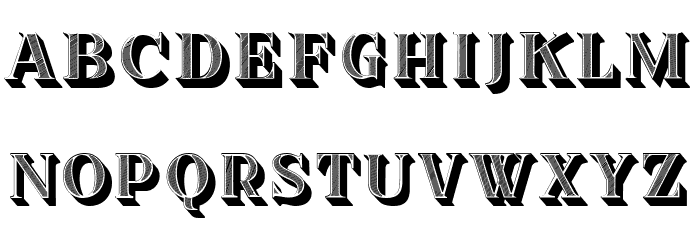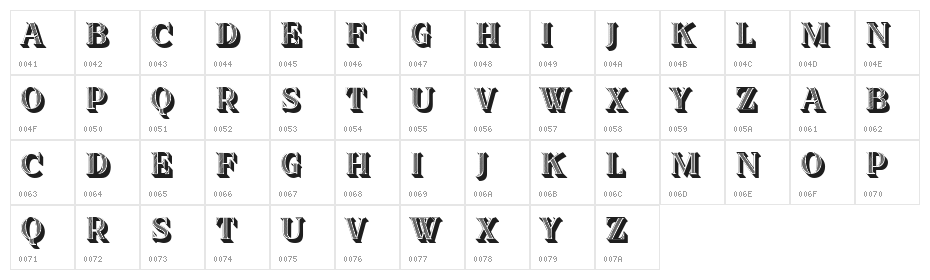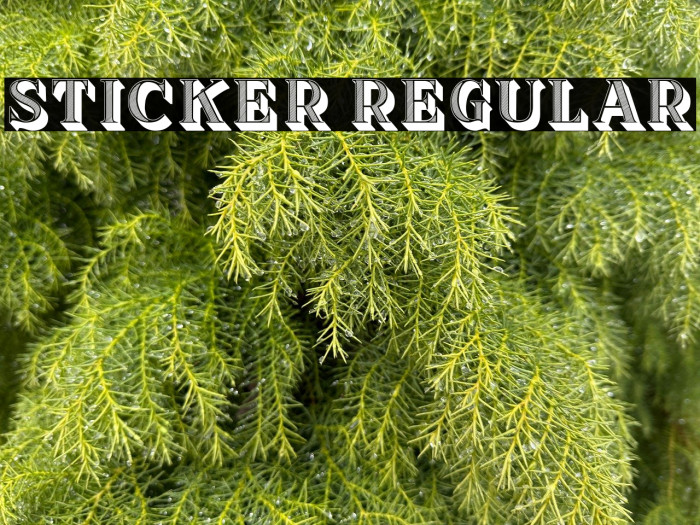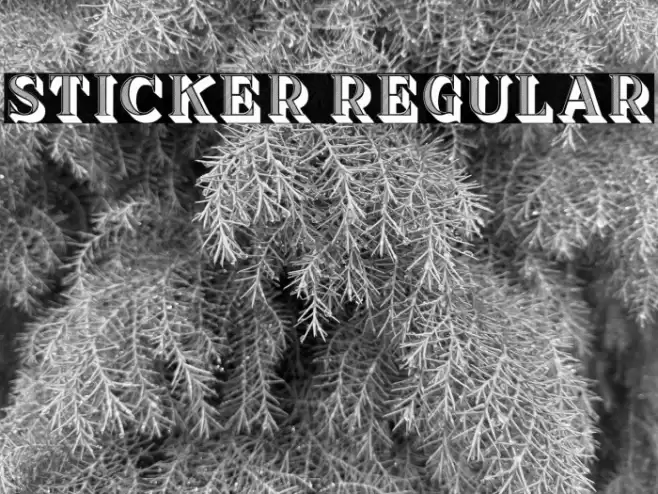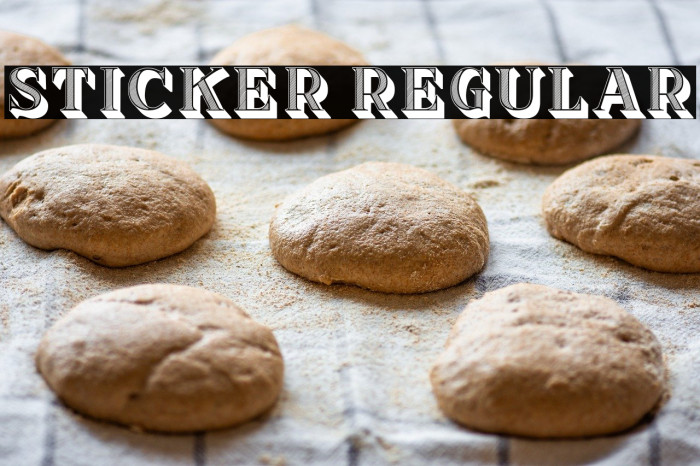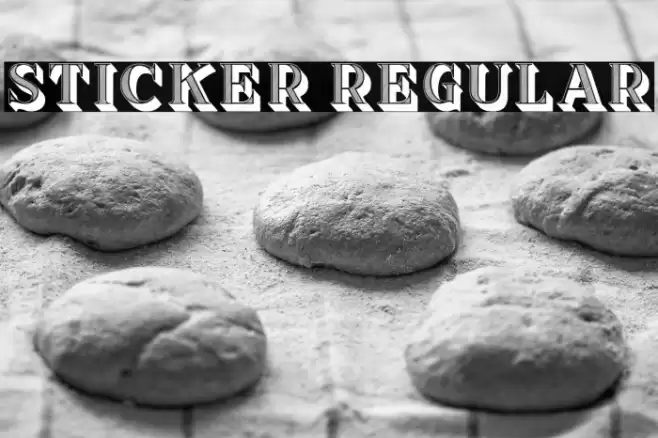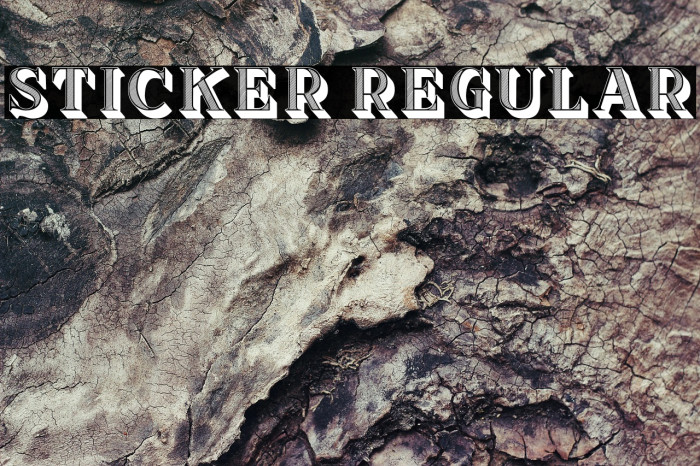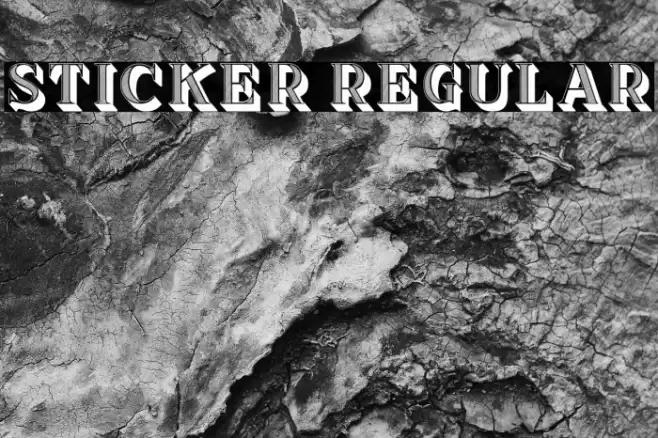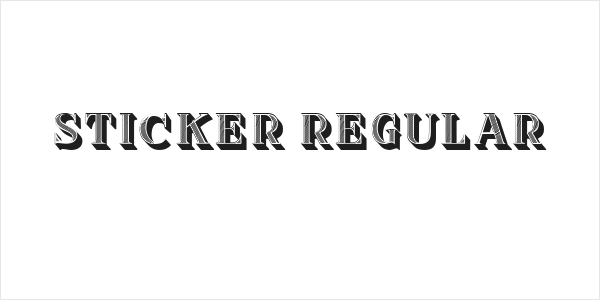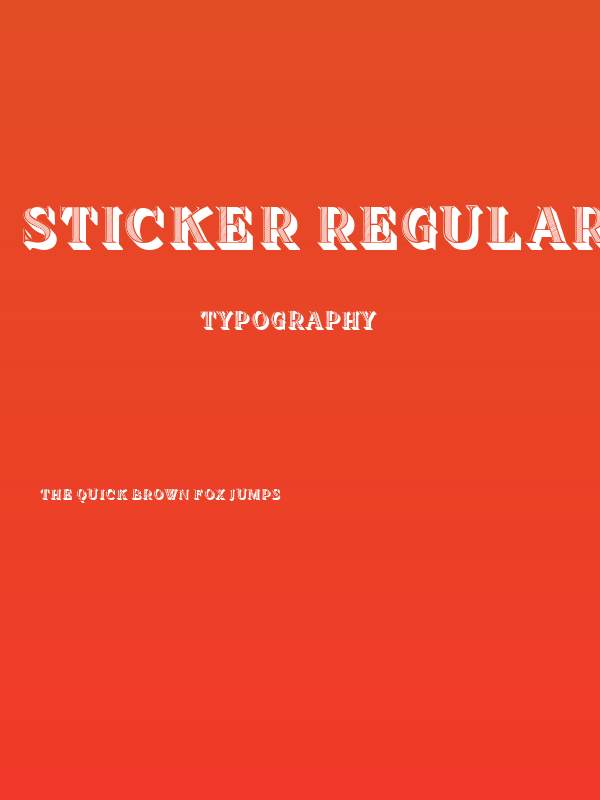
Sticker Regular Font
Sticker Regular Description
This font features a bold and striking design with a three-dimensional effect that gives it a unique and eye-catching appearance. The letters are capitalized and have a shadow that creates a sense of depth, making them stand out prominently. The style is reminiscent of vintage signage or poster fonts, with a decorative flair that adds character and personality. The strokes are thick and consistent, providing a strong visual impact. This font is ideal for projects that require a bold statement or a retro aesthetic, such as posters, headlines, or branding materials.
| Proposed Projects | Ideal for posters, headlines, branding, and any project requiring a bold, vintage look. |